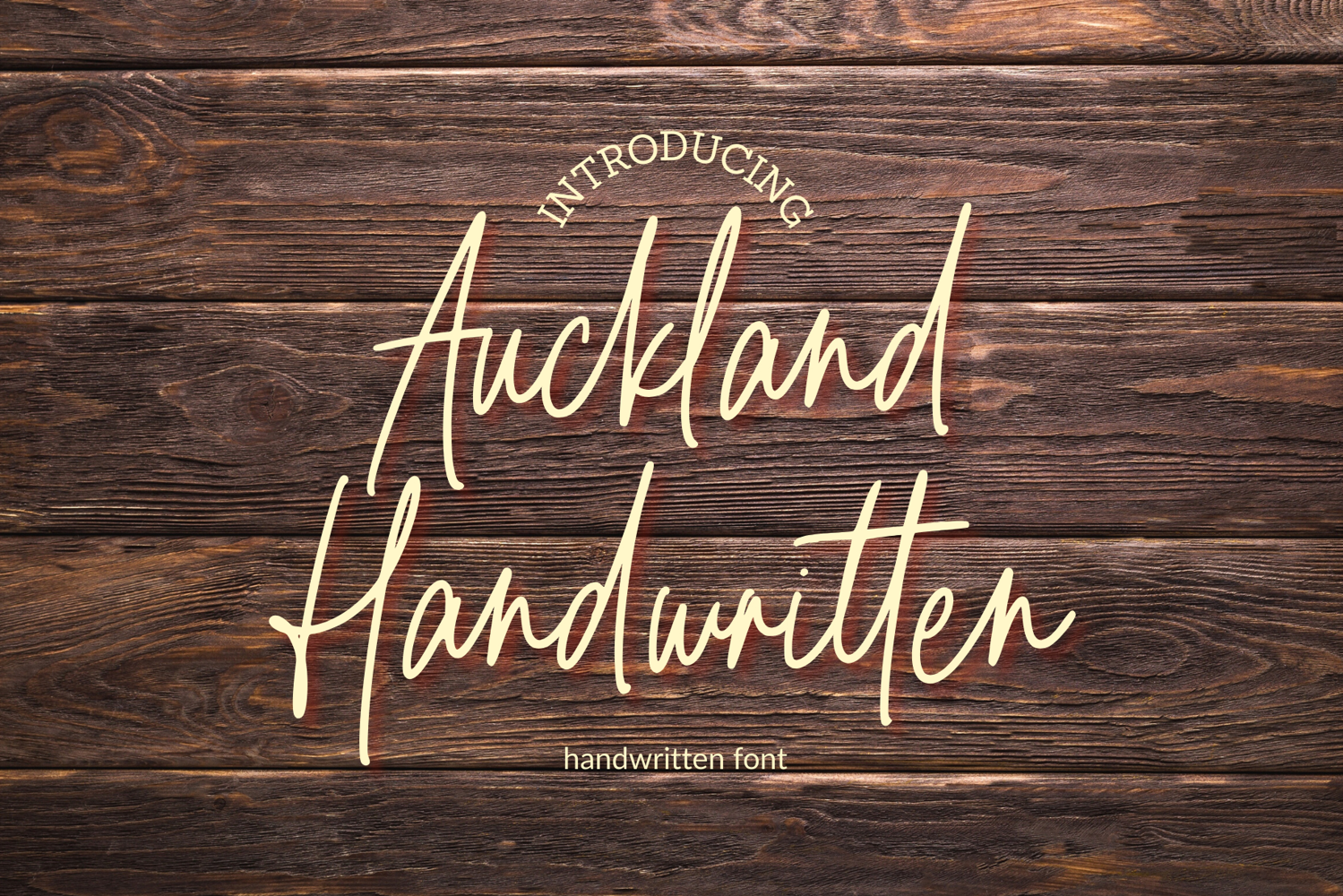
Auckland Handwritten
Auckland Handwritten is a beautifully crafted monoline font that brings a touch to your design projects. Featuring a unique, flowing handwritten style, this font offers smooth and consistent lines, making it perfect for both professional and casual designs. With 180 carefully crafted ligatures, Auckland Handwritten ensures natural letter connections, providing a seamless flow and authenticity to your text. Whether you're working on invitations, branding, or social media graphics, this versatile font adds a friendly, stylish element to any project.
• Monoline Design: Clean, uniform strokes that give the font a polished, yet casual feel.
• 180 Ligatures: A wide variety of natural letter combinations to enhance the legibility and beauty of your design.
• Perfect for: Branding, stationery, logos, invitations, packaging, social media posts, and more.
• Multi-Language Support: Includes support for many languages with extended character sets